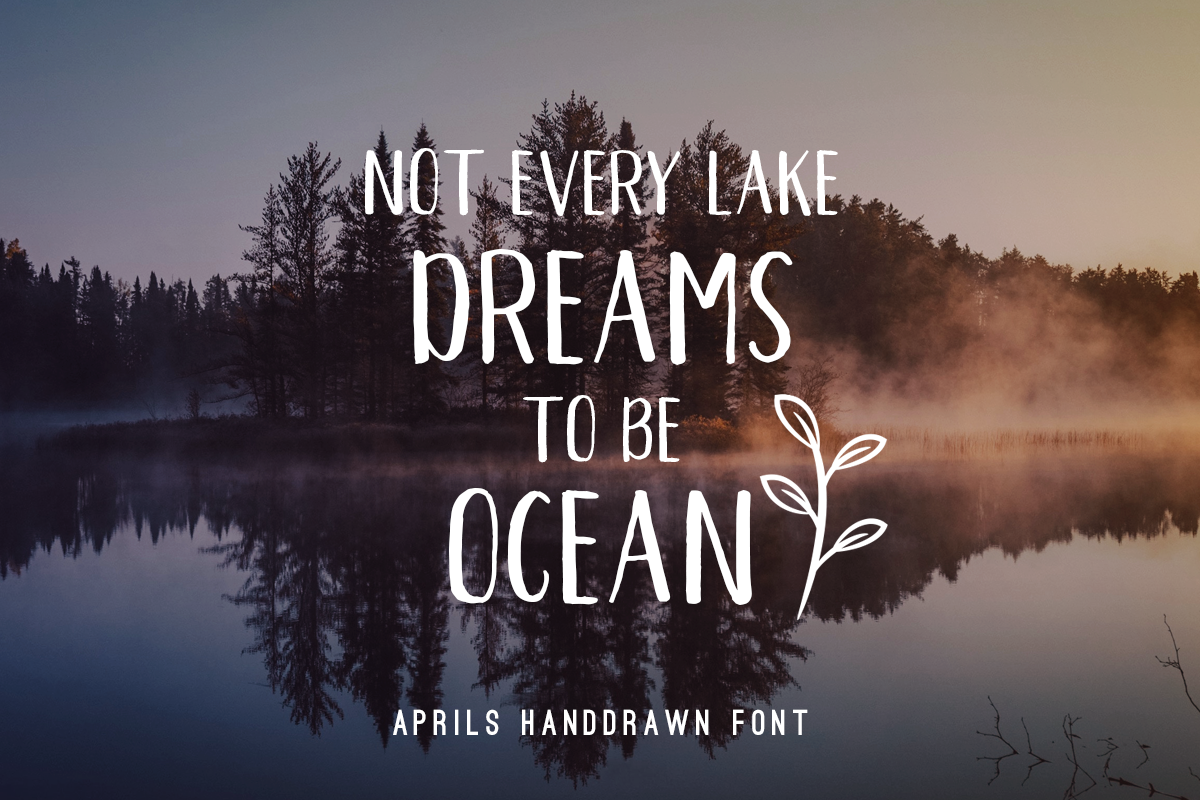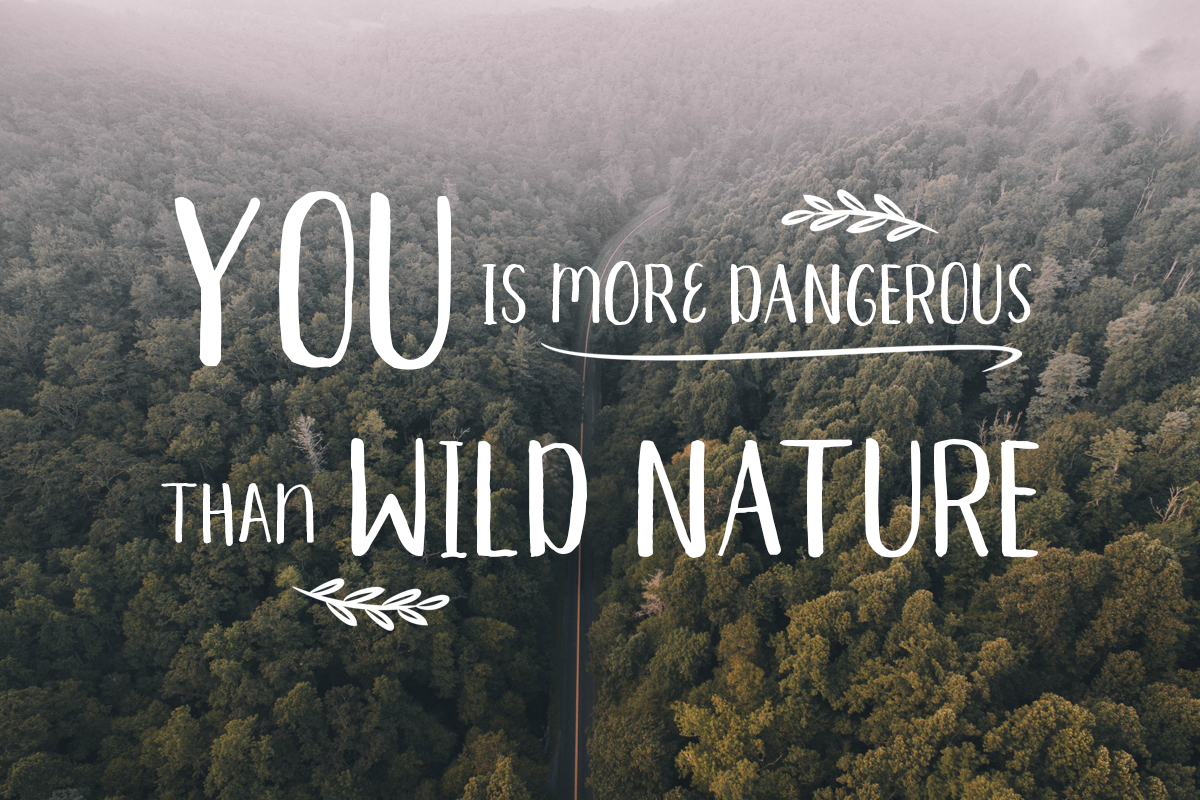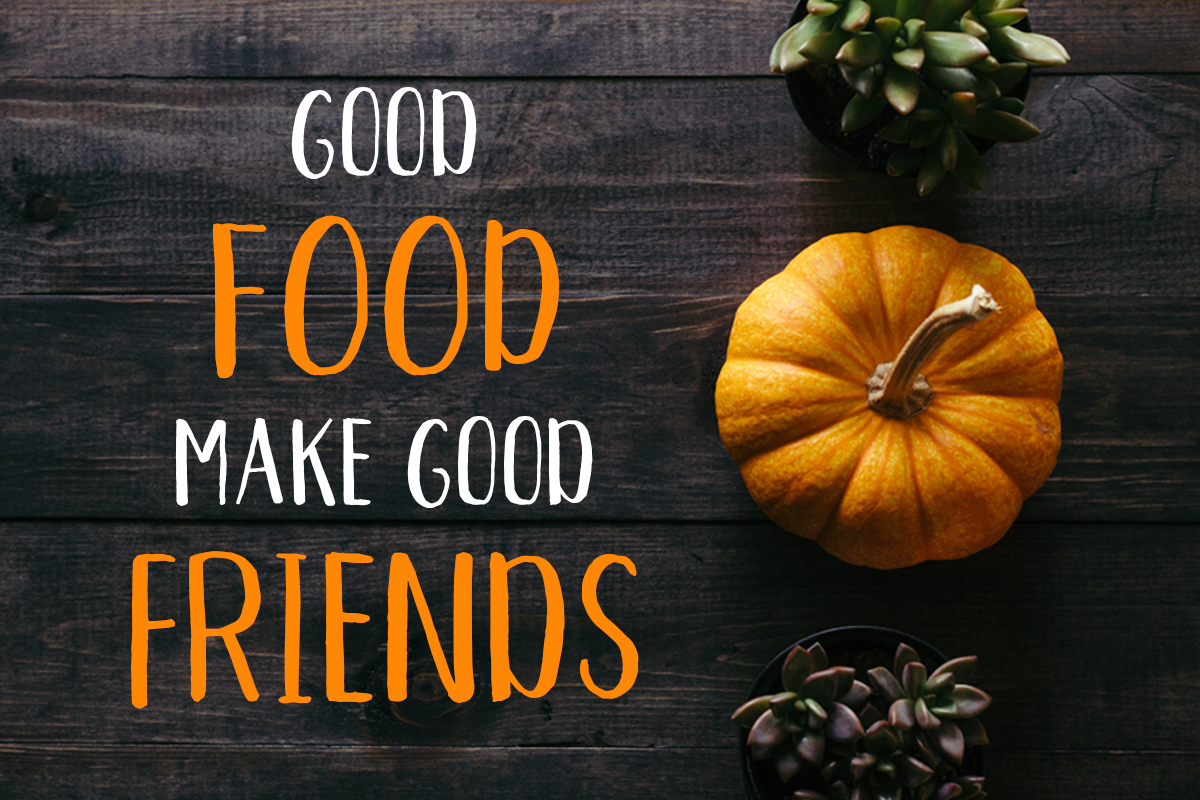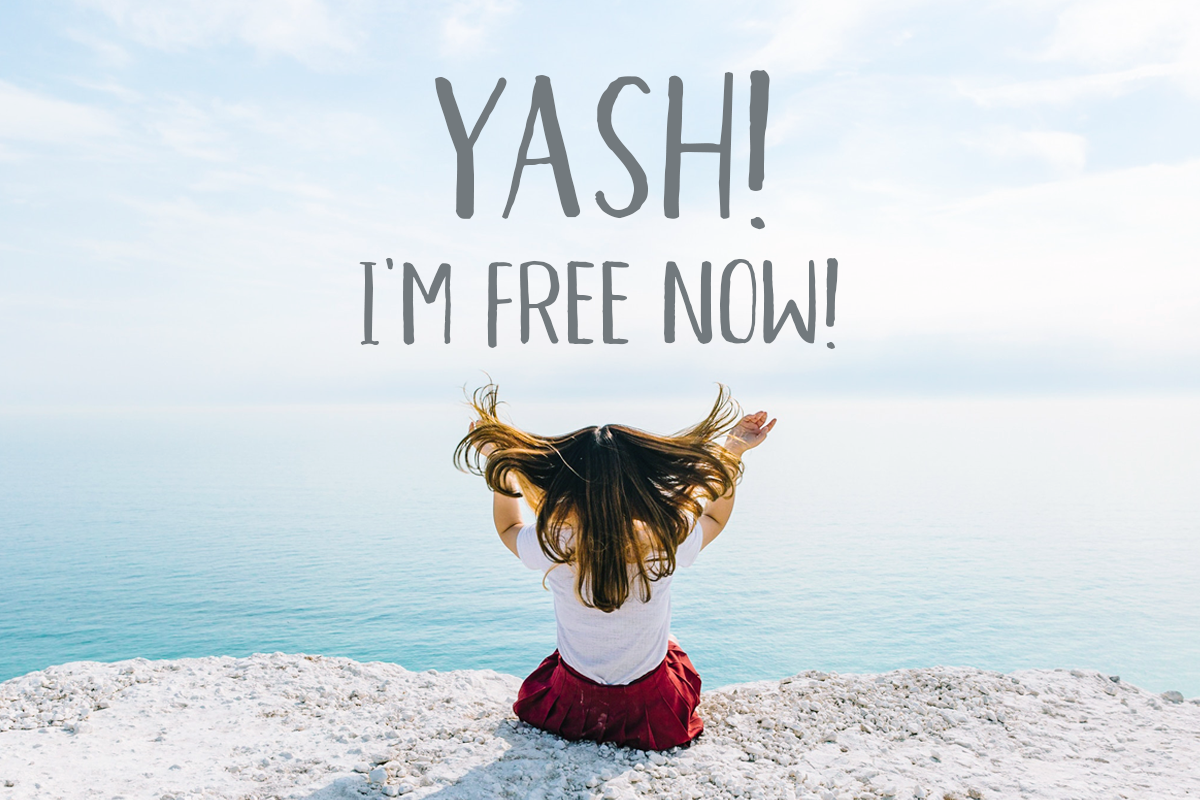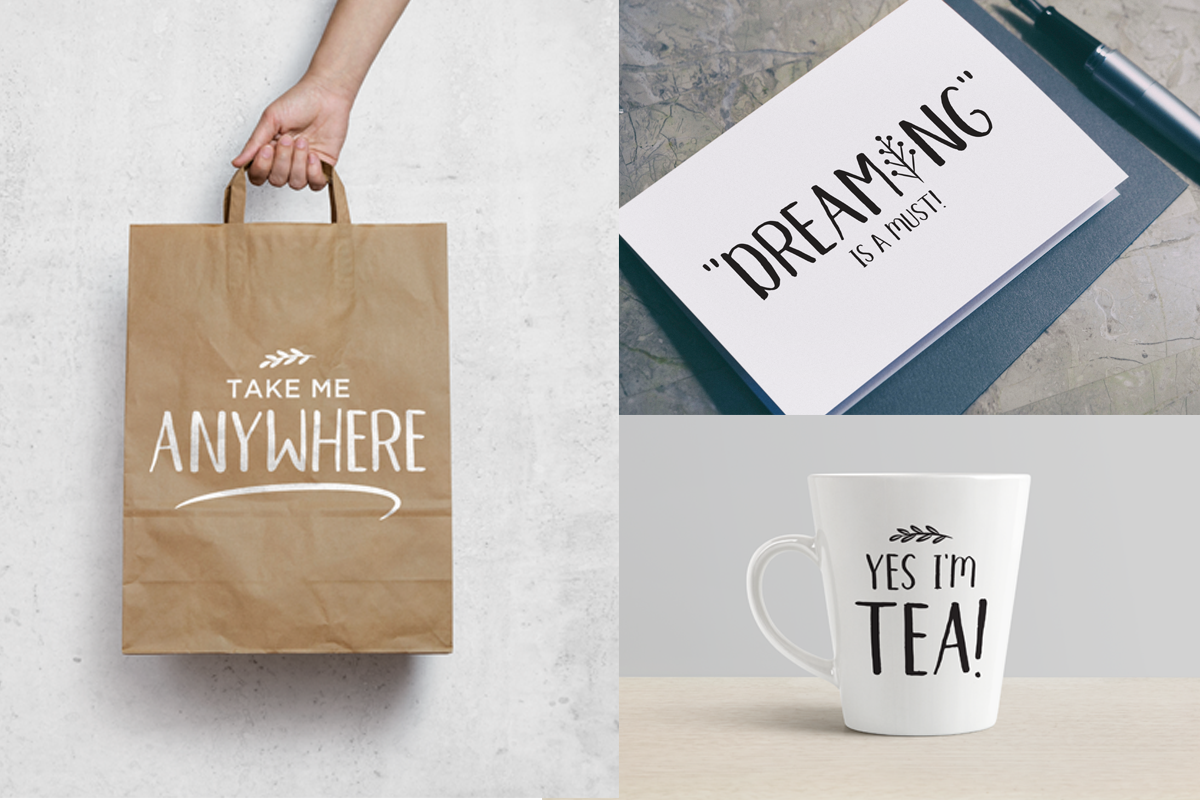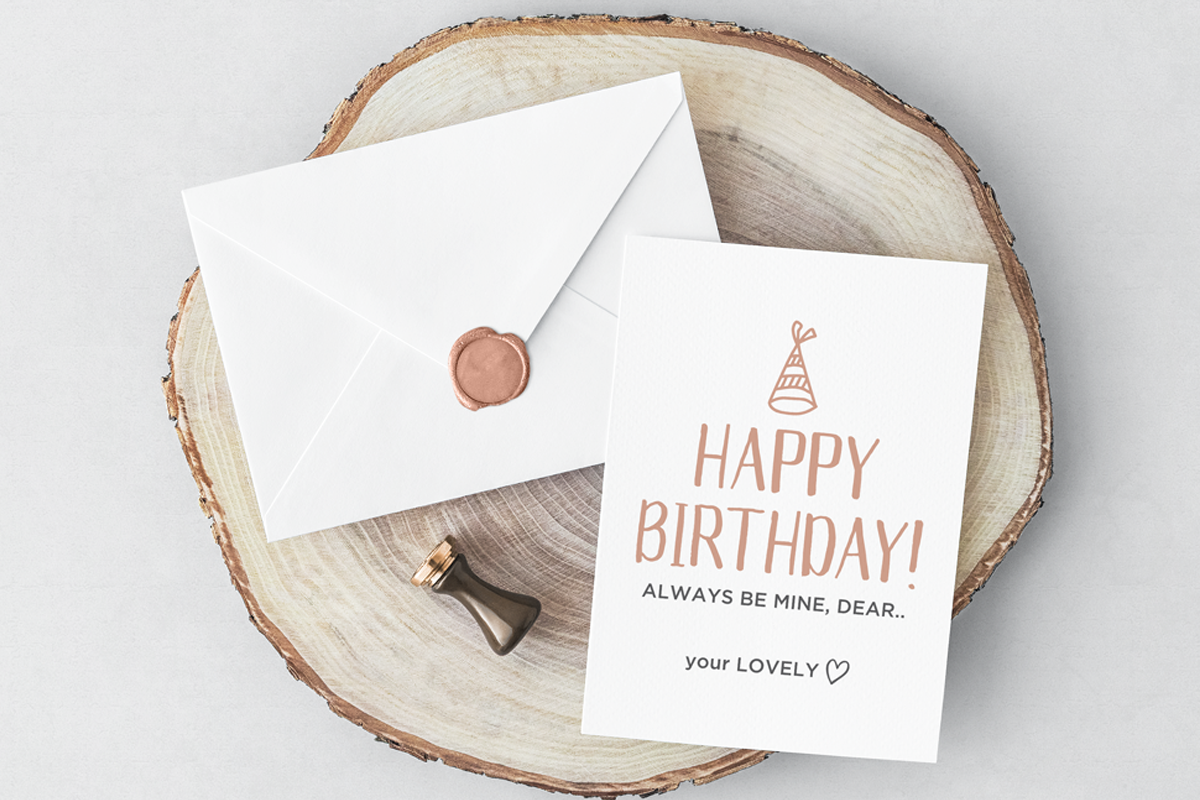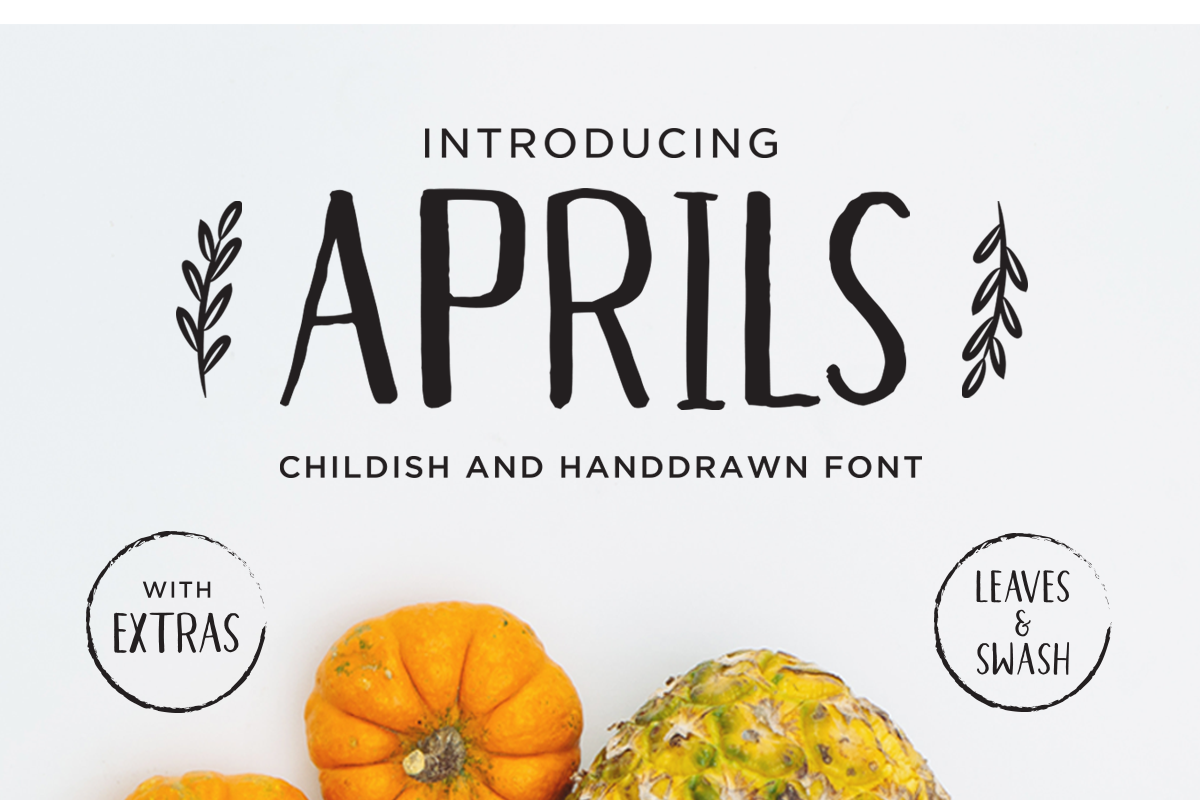
Bring a Touch of Whimsy to Your Designs with Aprils Font
Who hasn’t sat at their desk, staring at a blank canvas, trying to think of the perfect font to bring their design to life? For me, it’s those moments when inspiration strikes, and I know exactly what I need to take my project to the next level. And that’s exactly what Aprils Font is designed to do – add a playful, hand-drawn touch to your designs that’s sure to captivate your audience.
With its unique, hand-drawn style and charming cuteness, Aprils Font is the perfect addition to any designer’s toolkit. This super fun font comes with a range of extras, including leaf ornaments and swashes, that allow you to add a personal touch to your designs. Whether you’re creating a children’s book, a wedding invitation, or a social media graphic, Aprils Font is sure to bring a smile to your face and a touch of whimsy to your work.
April’s Font Key Features
- Unique Characteristics: April’s Font features a unique, hand-drawn aesthetic with a mix of rounded and pointed shapes, giving it a distinctive and modern feel.
April’s Font Review
April’s Font is a unique and creative typeface that has a lot to offer. One of its standout features is its ✨ elegant and refined design, making it perfect for high-end branding and typography projects. The font’s subtle curves and lines evoke a sense of sophistication and luxury.
Another advantage of April’s Font is its ✨ versatility. It can be used in a variety of contexts, from digital design to print media, and its legibility is excellent even at small font sizes. The font also comes in a range of weights and styles, making it easy to customize and adapt to different design needs.
- ⚠️ Limited language support: April’s Font may not be suitable for projects that require a wide range of languages, as it only supports a limited number of languages.
- ⚠️ Not ideal for body text: While April’s Font is great for headings and titles, it may not be the best choice for body text, as it can be quite ornate and difficult to read in large blocks of text.
Overall, April’s Font is a solid choice for designers looking for a high-end, elegant typeface. While it has some limitations, its unique design and versatility make it a great addition to any design toolkit. I would recommend it for projects that require a touch of sophistication and luxury, but not for everyday body text or projects with limited budgets.
Tips for Getting the Most Out of April’s Font
April’s Font is a versatile and elegant font that can be used in a variety of designs. To get the most out of it, try using it in combination with other fonts, experimenting with different font sizes and colors, and using it to create headings and titles.
April’s Font is commonly used in designs that require a touch of elegance and sophistication, such as:
Alternatives to Aprils Font
Open Sans is a clean and modern sans-serif font, suitable for a wide range of applications, including digital products, marketing materials, and websites. It’s highly legible and versatile, making it a great choice for body text and headings.
Compared to Aprils Font, Open Sans has a more neutral tone and is more suitable for corporate and professional designs. Aprils Font has a more playful and creative feel, while Open Sans is more straightforward and clean.
Lato is a modern sans-serif font with a strong, yet elegant feel. It’s ideal for use in digital products, magazines, and websites that require a sophisticated and stylish look.